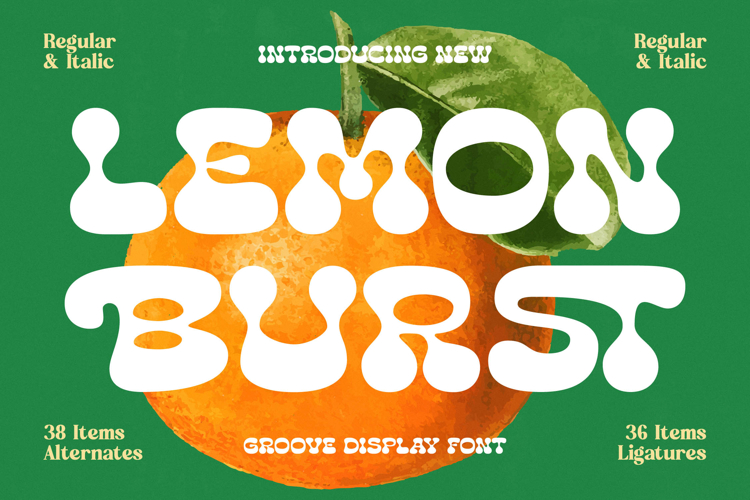
Lemon Burst - Groovy Display Font
Unleash the vibrancy of the 70s display aesthetic with Lemon Burst - Groovy Display Font. This typeface captures a distinctly retro yet fresh spirit, defined by its exceptionally fluid, balloon-like letterforms. Designed for maximum visual impact, its bubbly outlines and tight curves instantly convey energy and fun, making it an indispensable tool for designers seeking to inject a powerful sense of nostalgic playfulness into their work.
Achieve unparalleled creative customization thanks to the rich feature set included in Lemon Burst - Groovy Display Font. This display family includes both Regular and Italic weights, complemented by a substantial collection of 38 alternates and 36 custom ligatures. These OpenType features allow for sophisticated text weaving and unique headline compositions, ensuring your design avoids repetition and maintains a high level of typographic polish and visual fluidity across diverse applications.
Expand your design reach effortlessly into global markets with this professionally engineered typeface. With its extensive multilingual support, Lemon Burst - Groovy Display Font adapts seamlessly across global markets, making it incredibly versatile for international projects. This comprehensive language support ensures that your high-impact brand message translates clearly, maintaining its unique groovy character regardless of the required script.